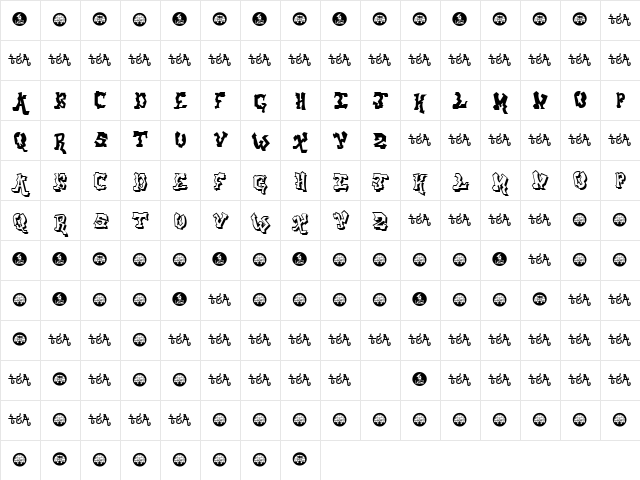
aerosol menace Regular Free Font
aerosol menace Regular
Design Context for aerosol menace
aerosol menace is a composed and adaptable typeface that performs quietly and consistently across a wide range of design contexts.